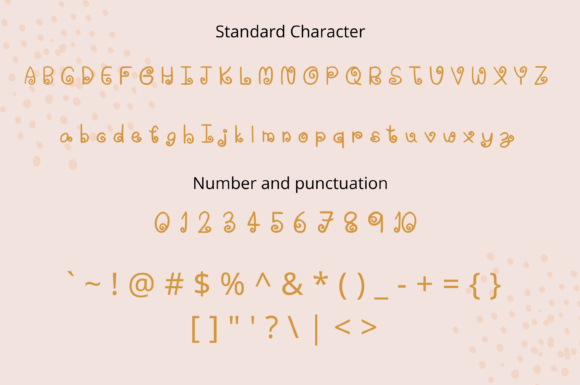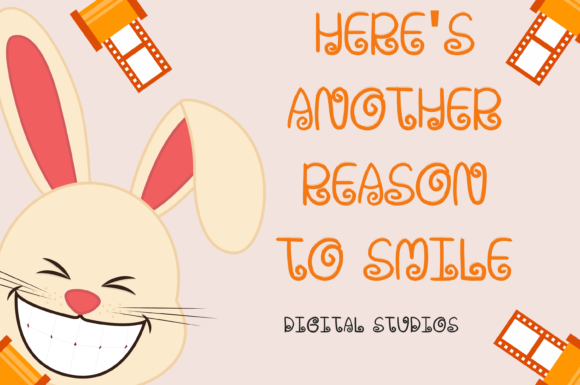
Little Rolling Font
db-ku.com - Script & Handwritten -- Little Rolling is a whimsical and brushed handwritten font. Whether you’re looking for fonts for Instagram or calligraphy scripts for DIY projects, this font will turn any creative idea into a true piece of art!